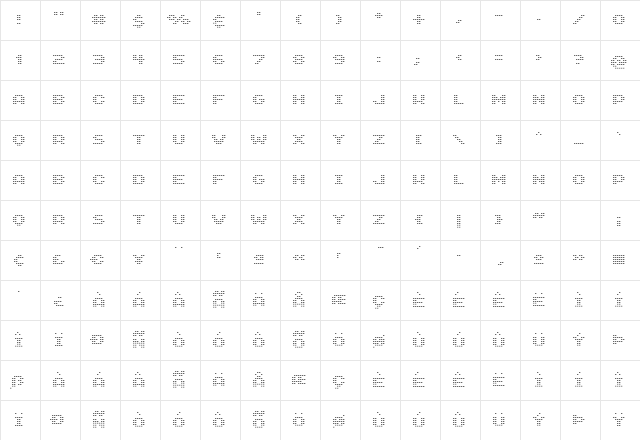
Complete GenetrixSquareCore Regular glyph index. Displaying only characters natively supported by GenetrixSquareCore Regular font.
GenetrixSquareCore is a composed and adaptable typeface that performs quietly and consistently across a wide range of design contexts.